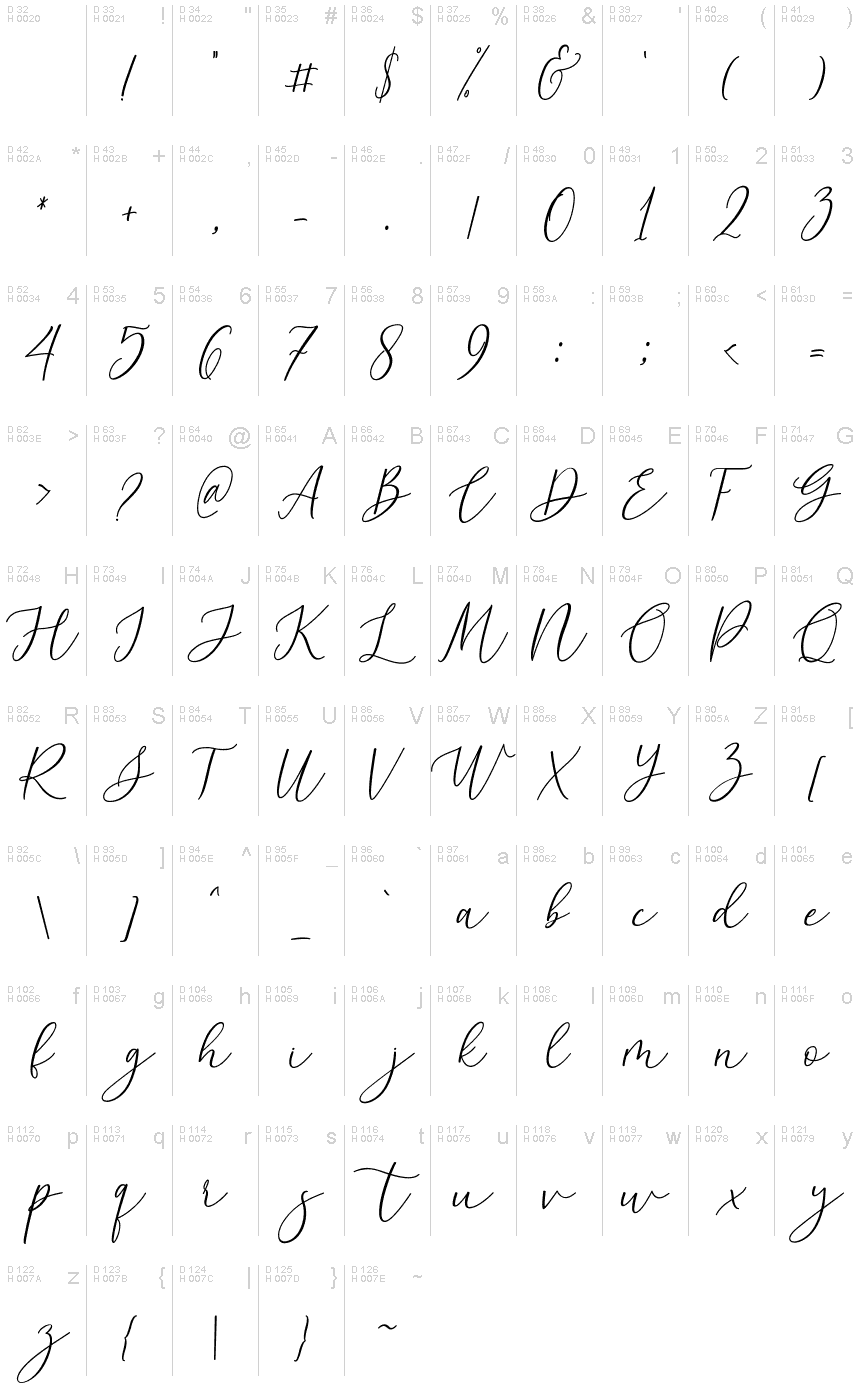
Beloved Mother, a graceful calligraphy semi-light font designed by Fontysia, is the perfect addition to any project that requires an elegant touch. Its delicate strokes and flowing curves make it suitable for wedding invitations, greeting cards, logos, and branding materials. The semi-light font weight gives it a soft and feminine feel that would be ideal for beauty or fashion brands. Beloved Mother's versatility also makes it suitable for book covers, editorial design, or any project that needs a touch of sophistication. Elevate your designs with Beloved Mother's timeless beauty and capture your audience's attention with its effortless charm.
Beloved Mother